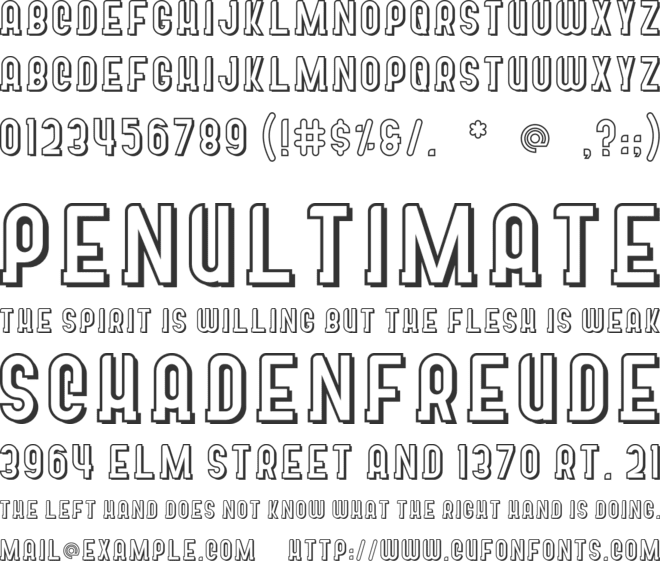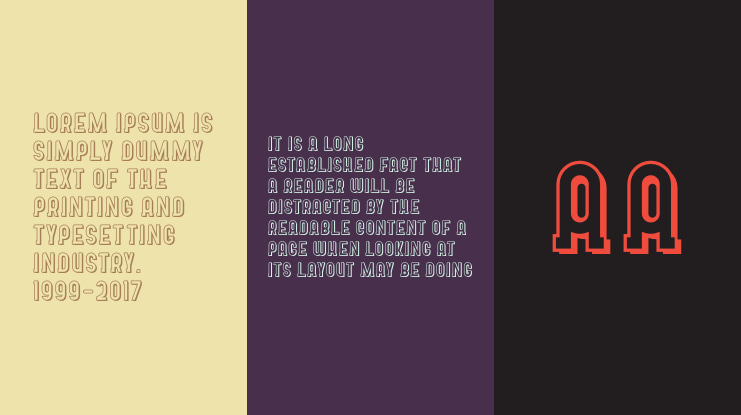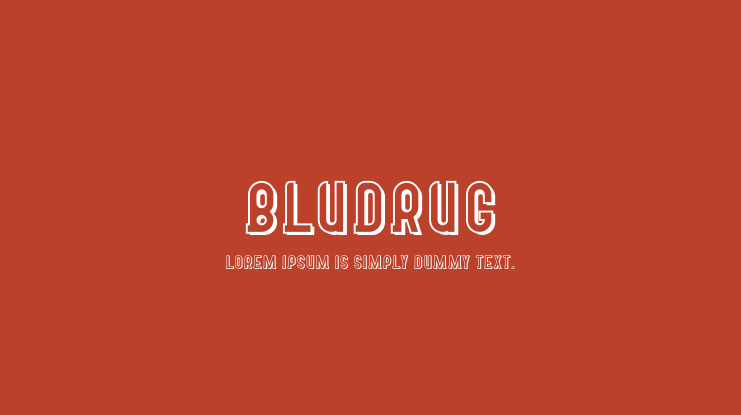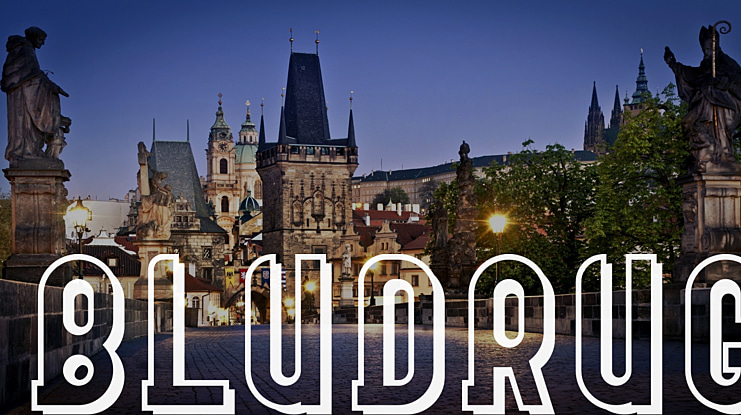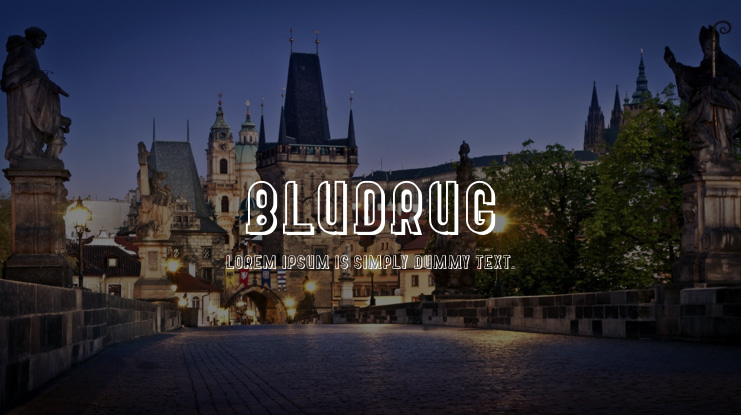
BLUDRUG Font
Introducing our new product BLUDRUG FONT - Modern Font
BLUDRUG FONT - Modern Font is a bold and authentic display font. The font is suitable for any branding project like logo, t-shirt printing, esport, and many more. outstanding in a wide range of contexts.
-Uppercase